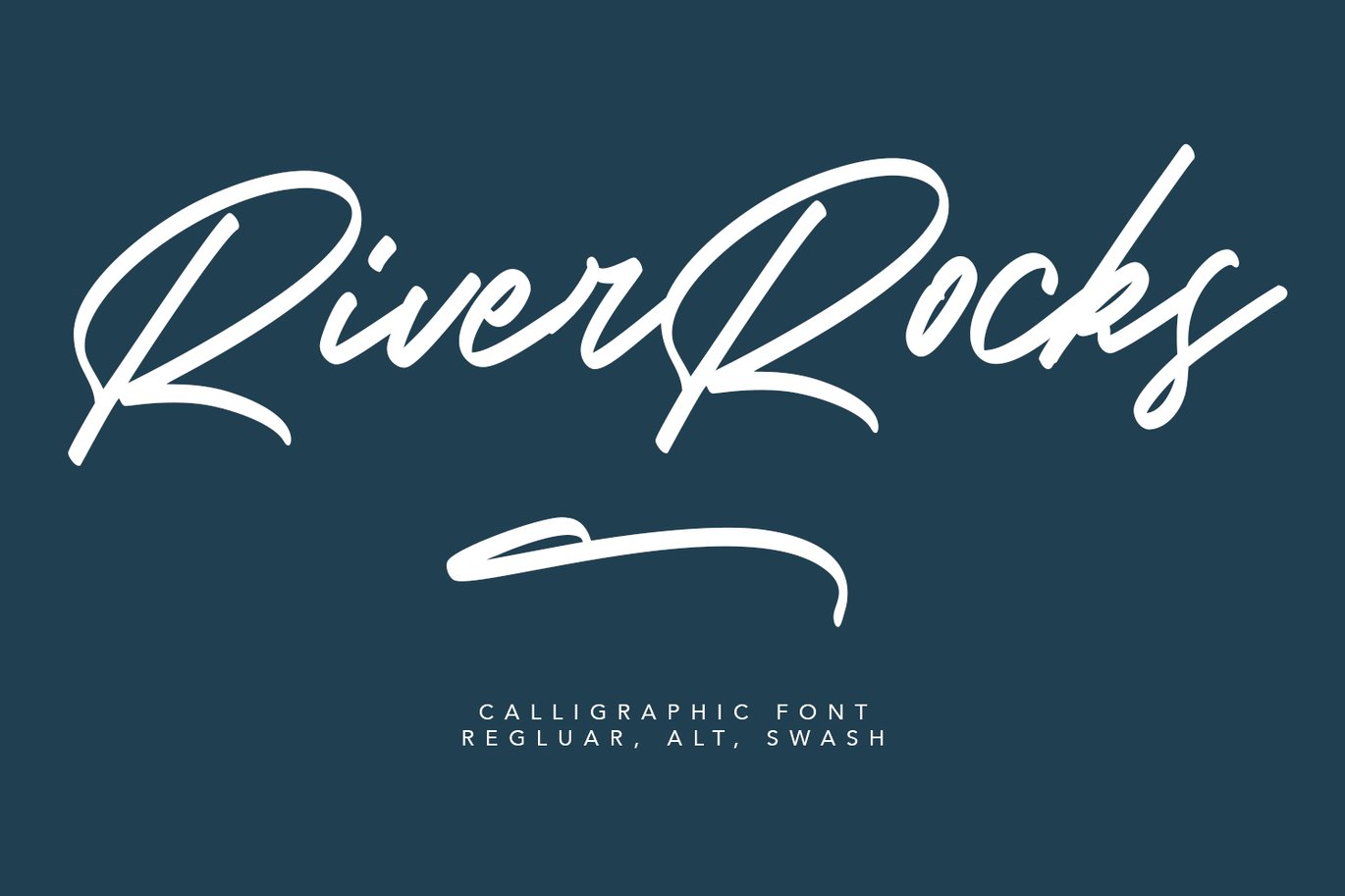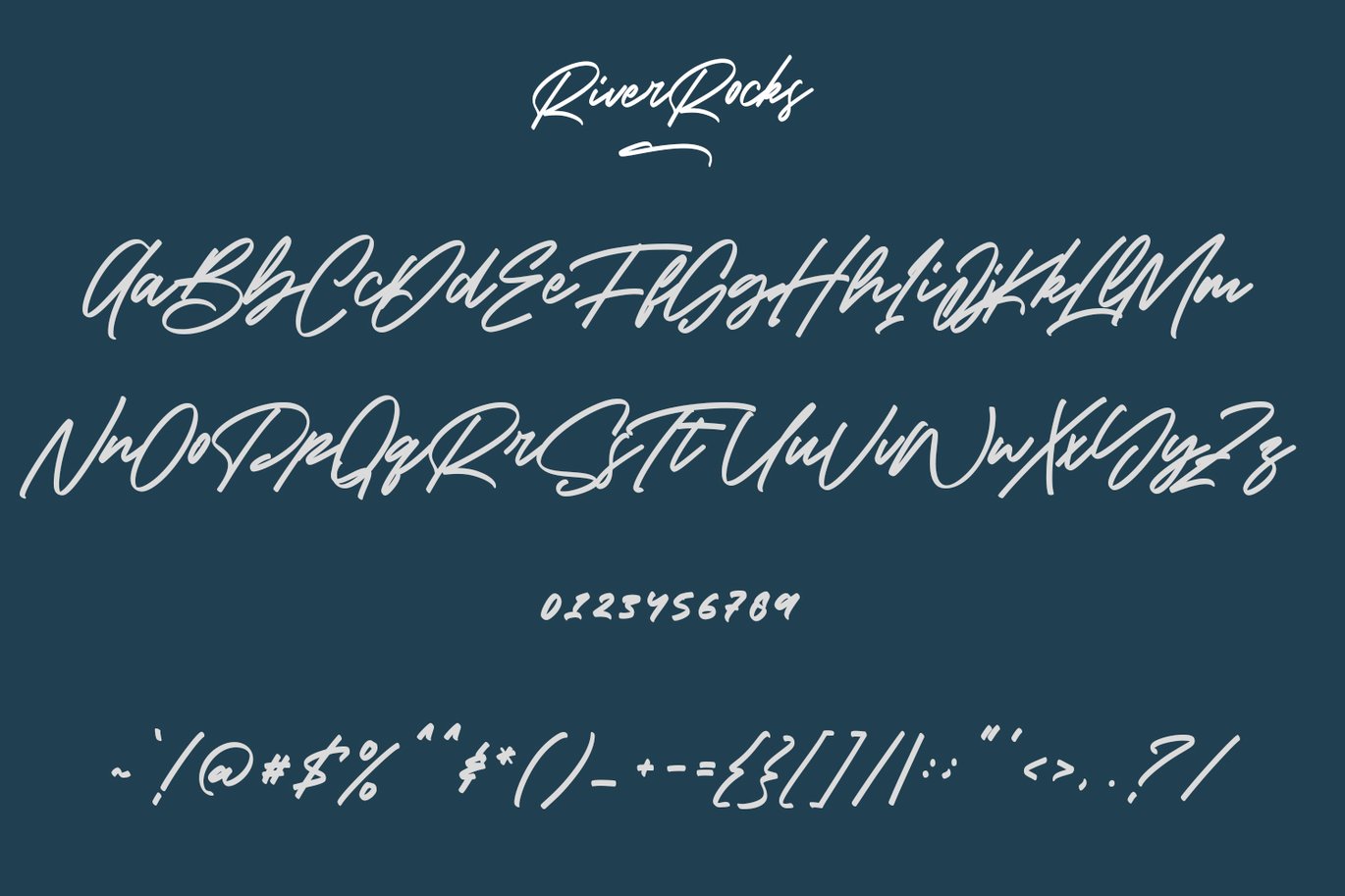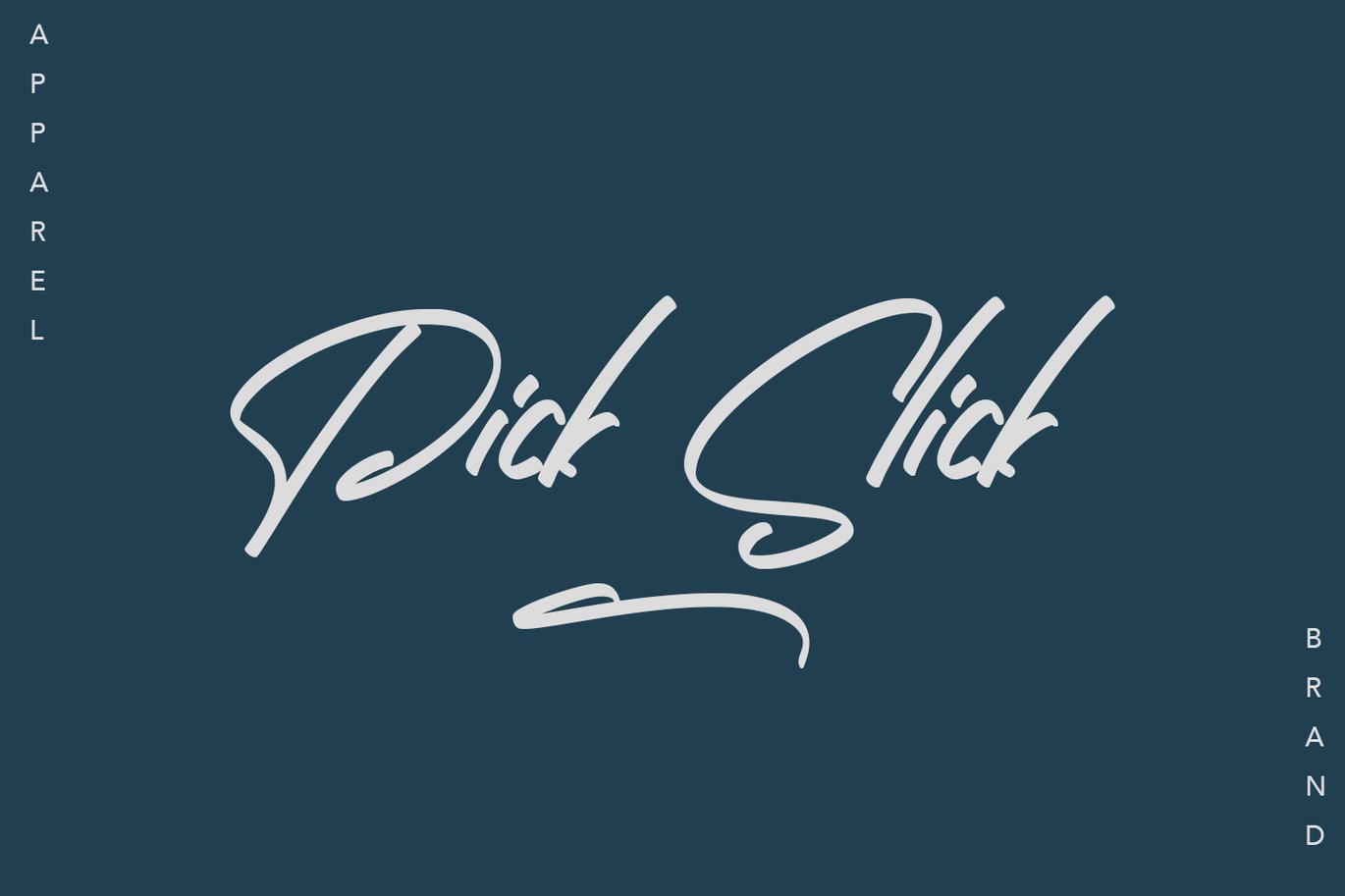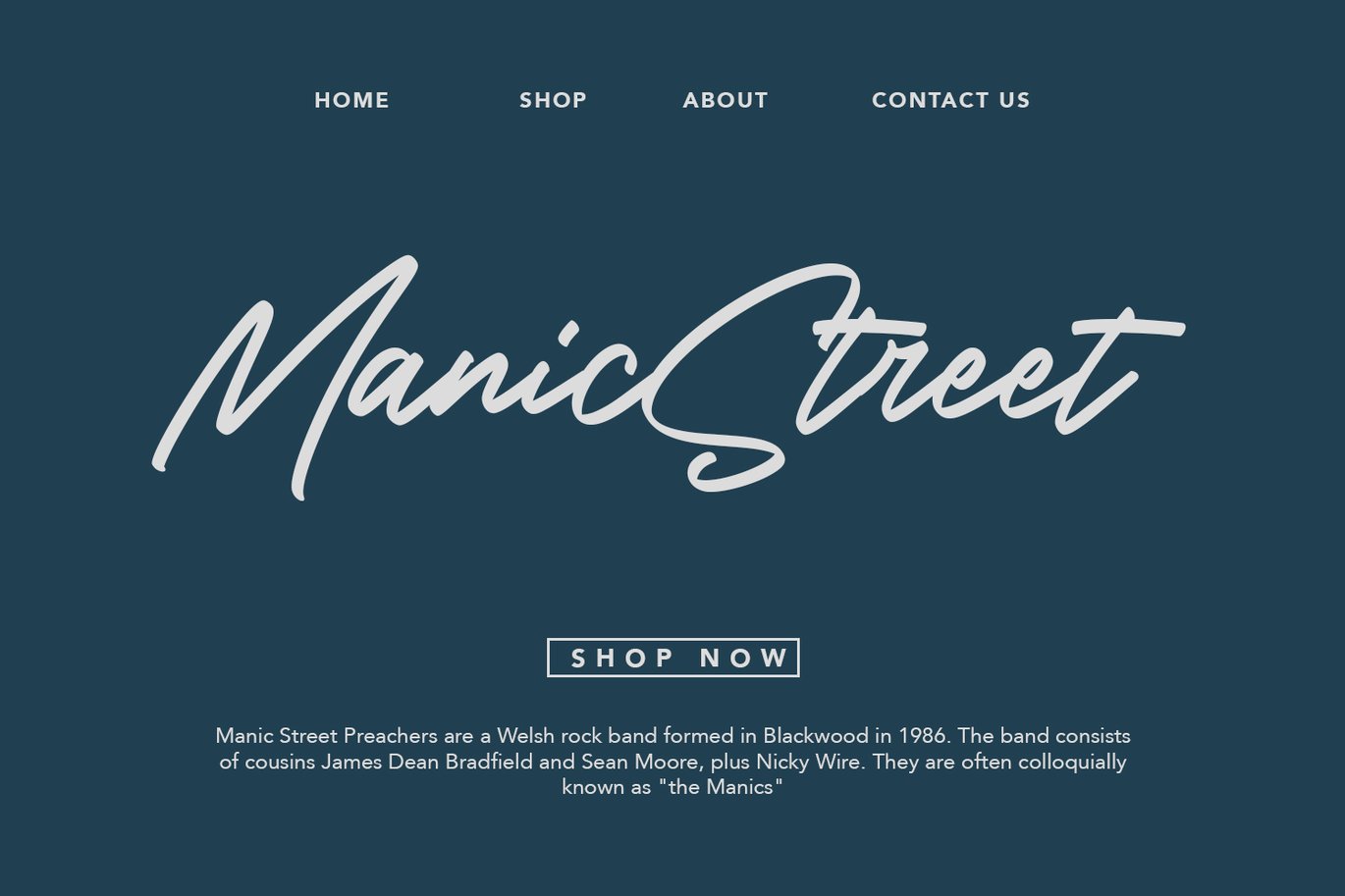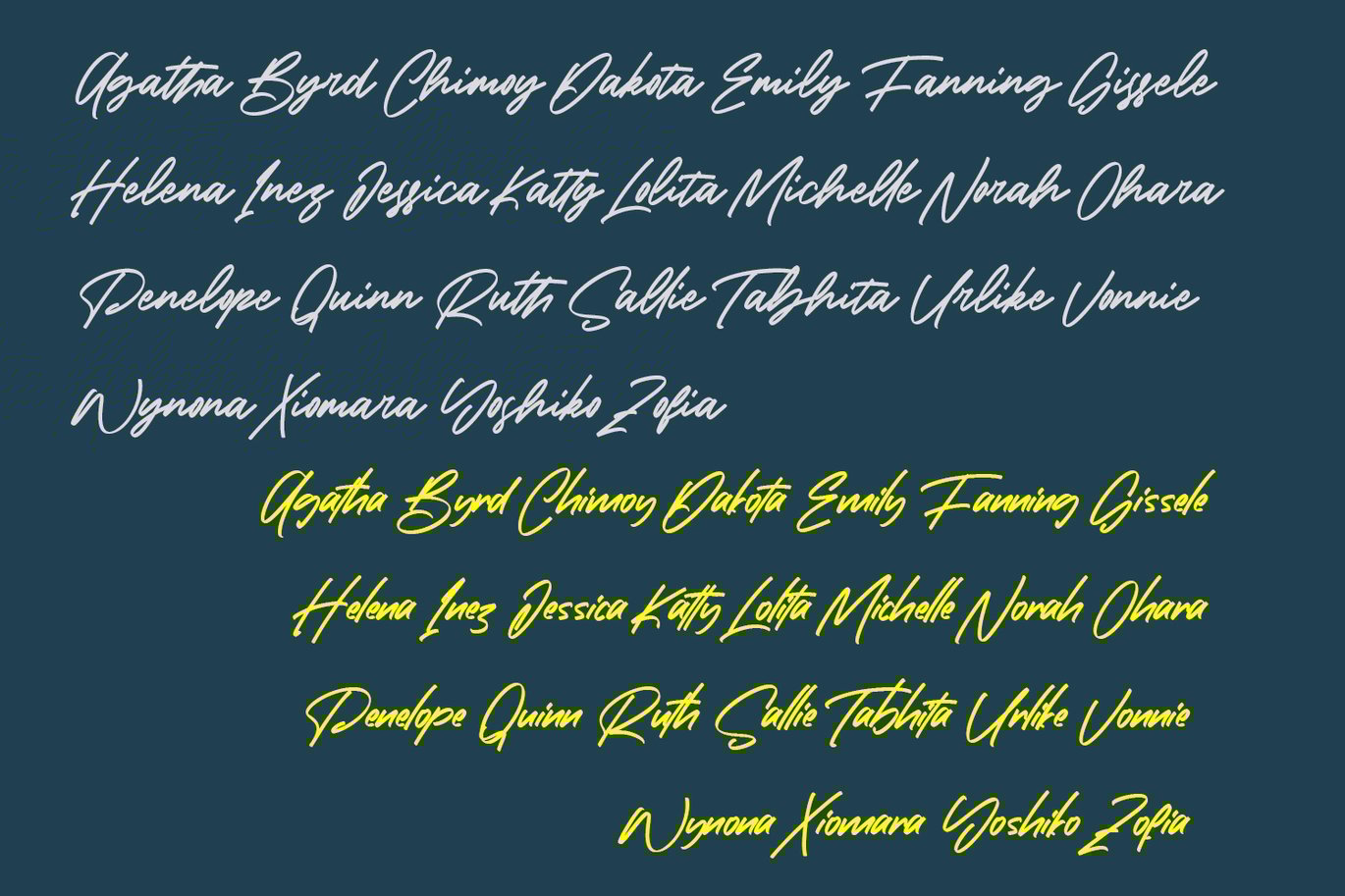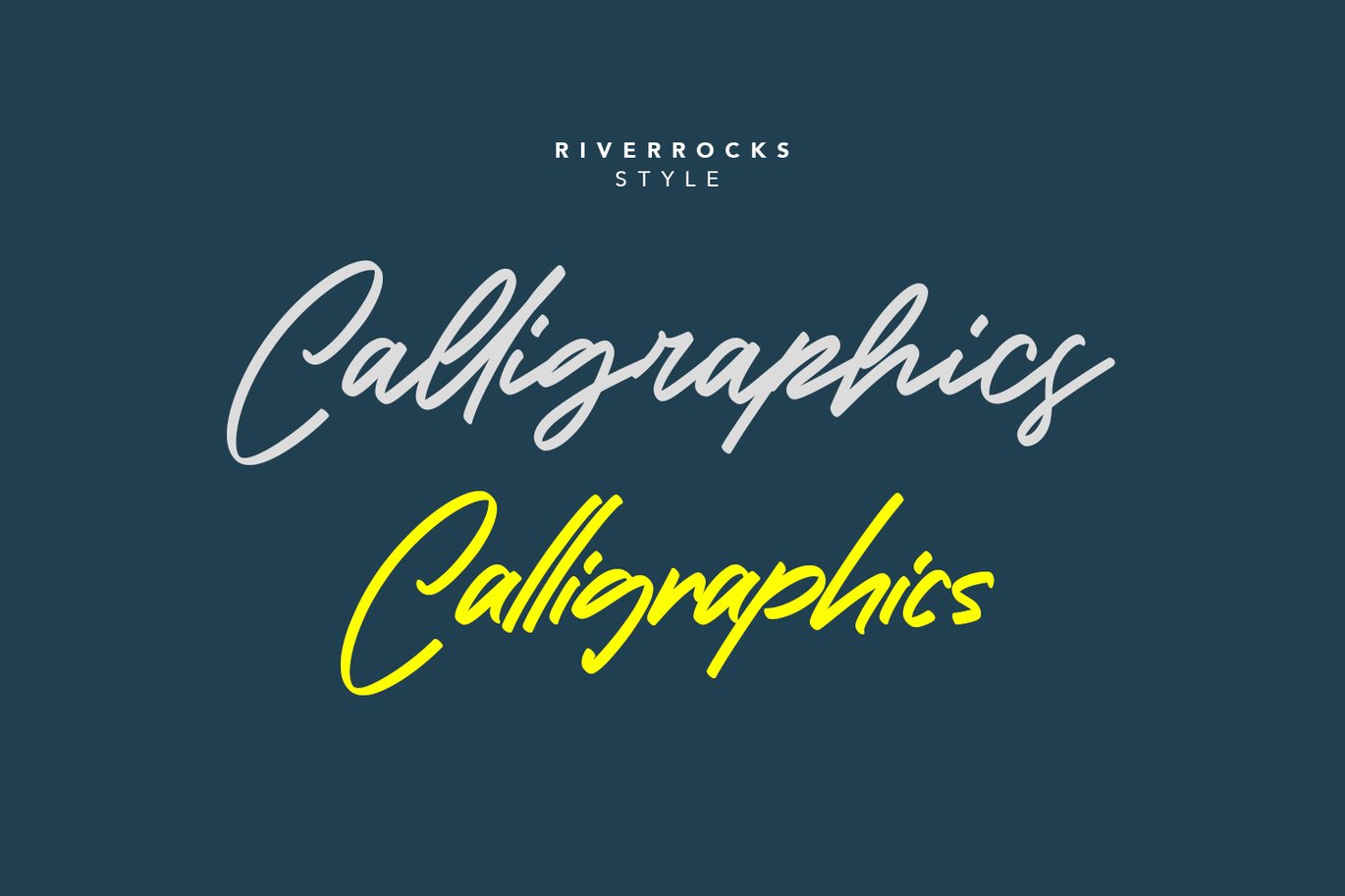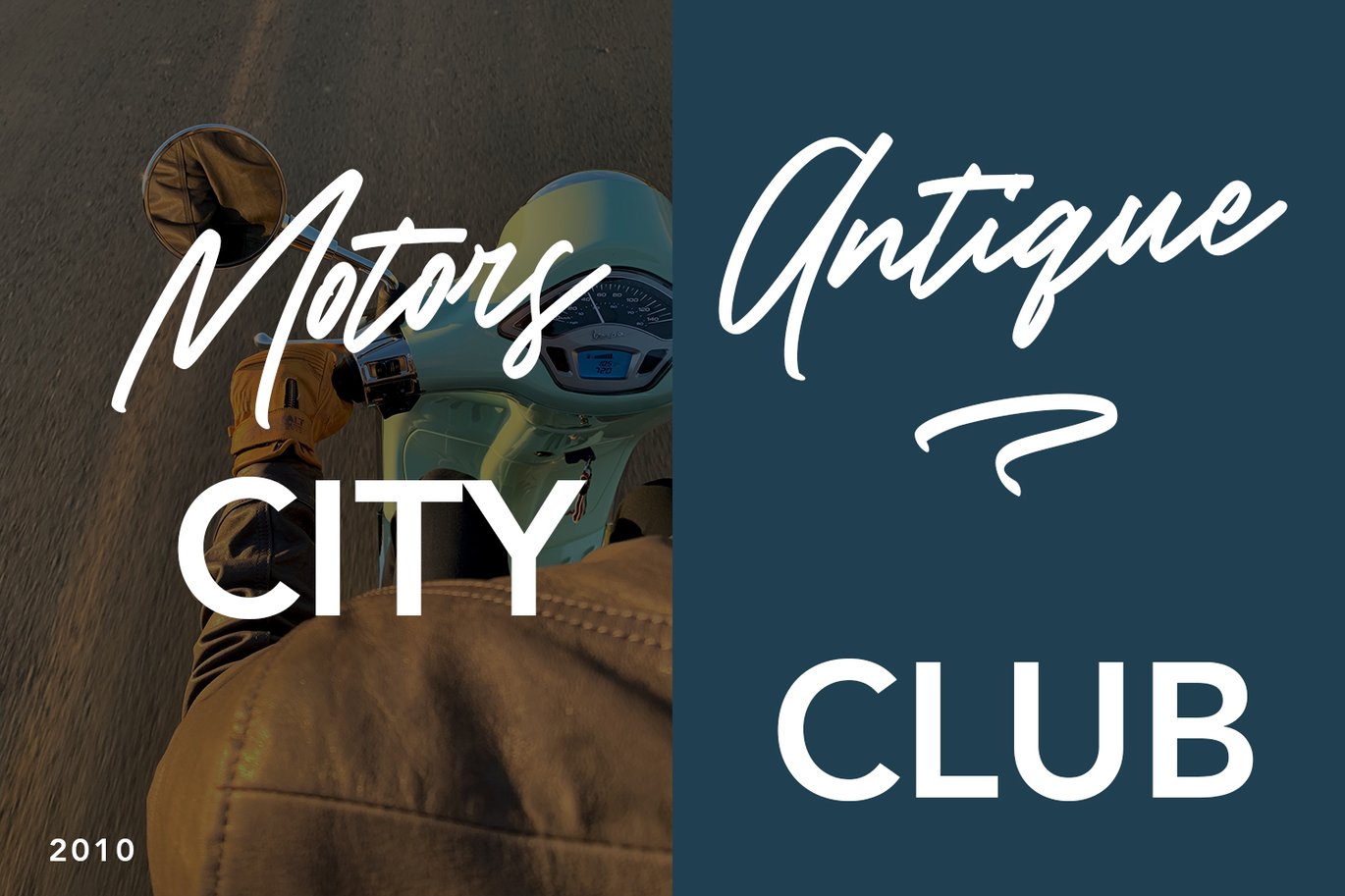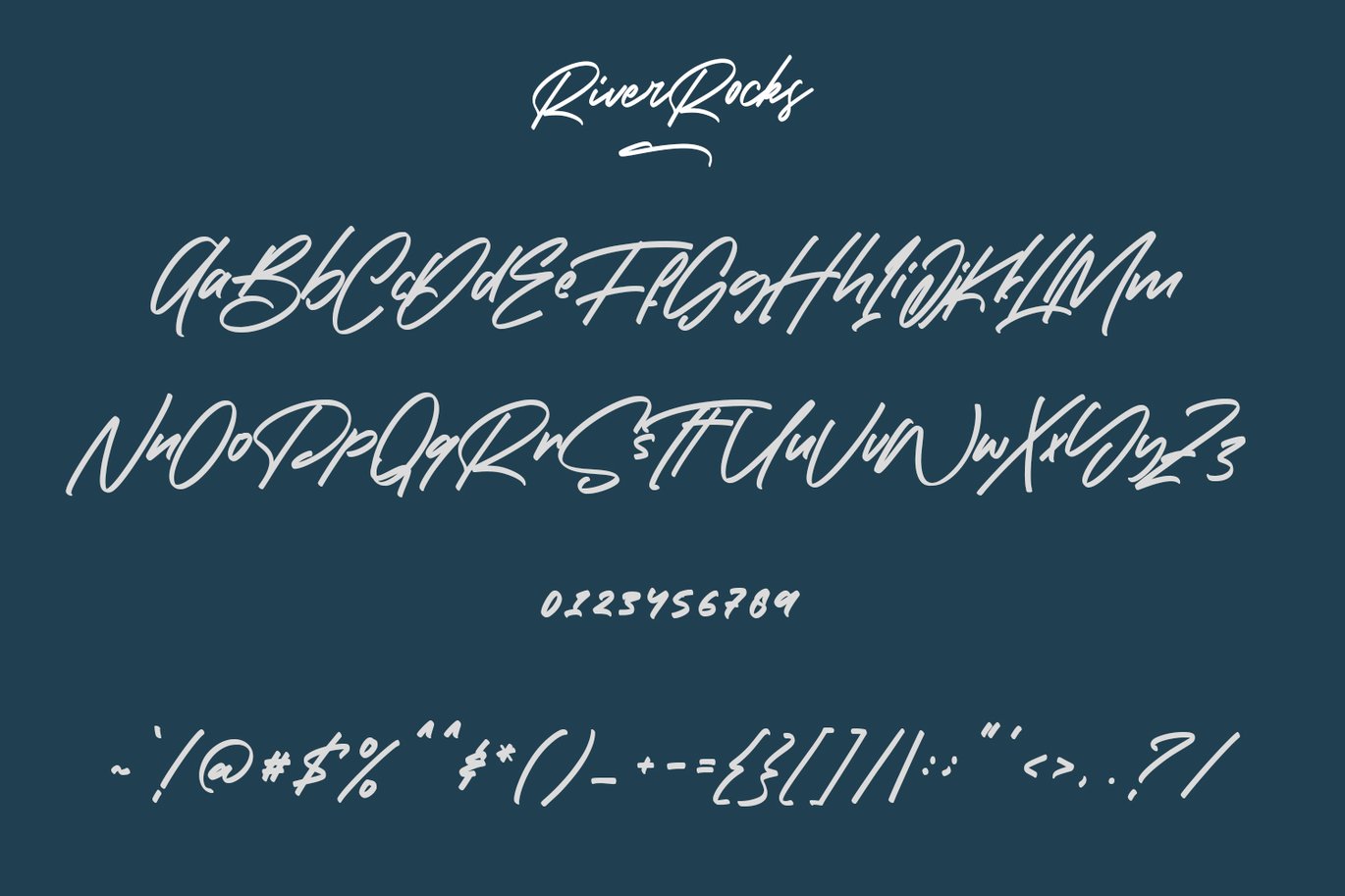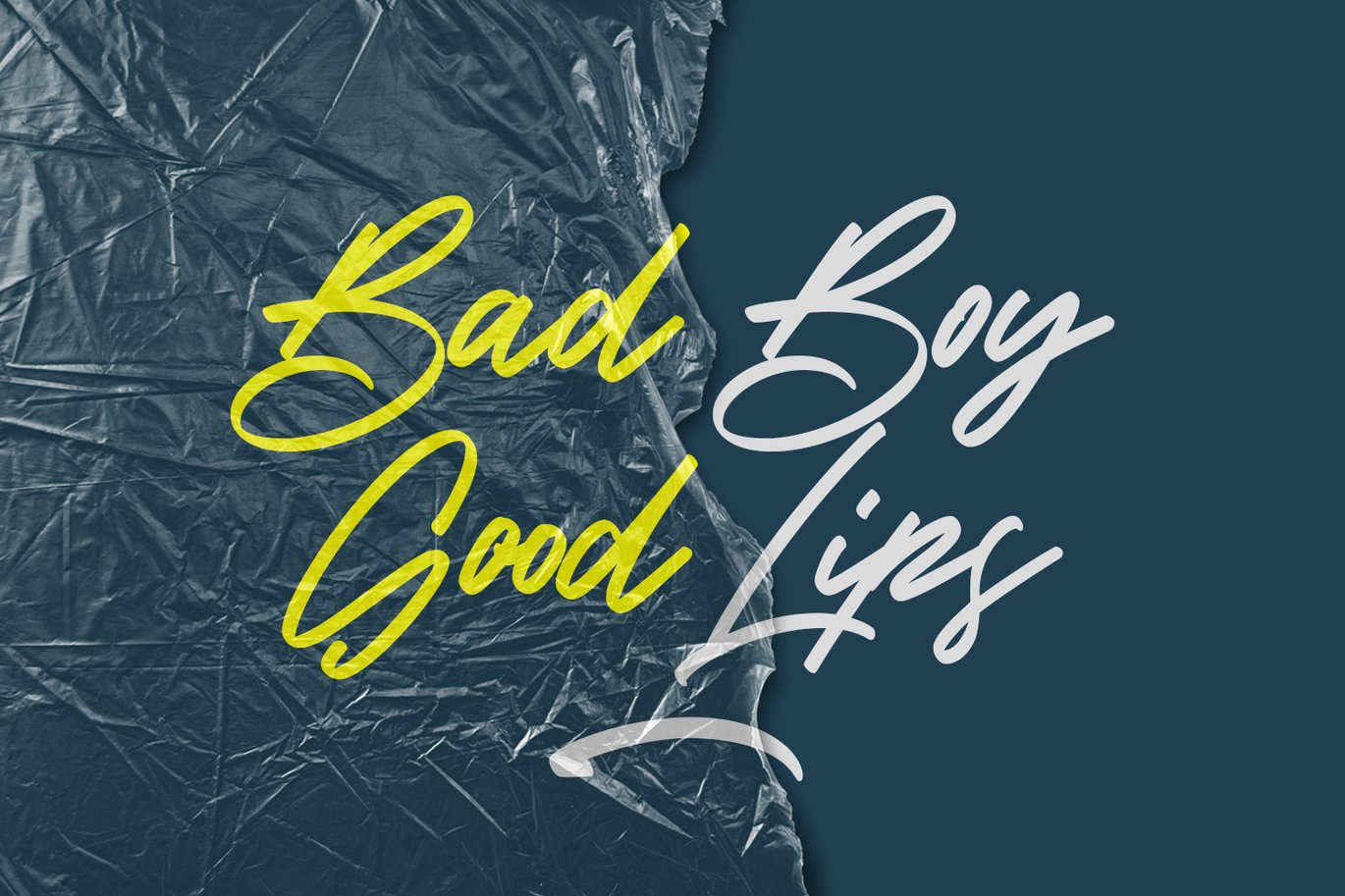
River Rocks Brush Font
Give your designs an authentic handcrafted feel. “River Rocks Brush” is perfectly suited to signature, stationery, logo, typography quotes, magazine or book cover, website header, clothing, branding, packaging design and more.